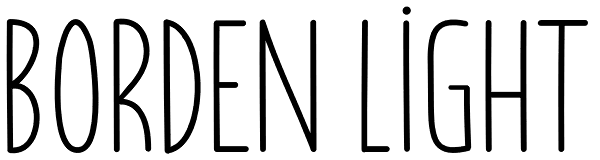
Borden
Borden is a rounded hand-printed caps font ideal for your graphic project. Usage recommendations : Title, short text, children’s book, poster, book cover, brochure, label, magazine. "The friendly hand-drawn charms of the Borden family […] Designed...